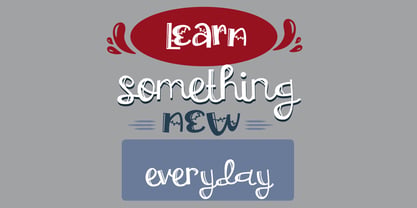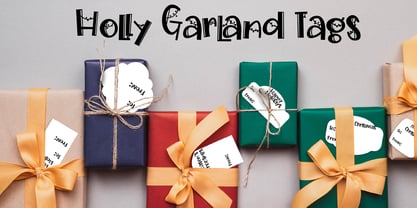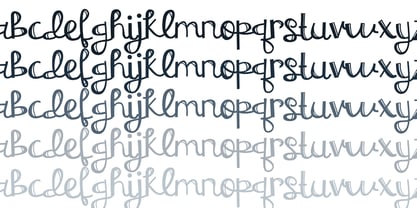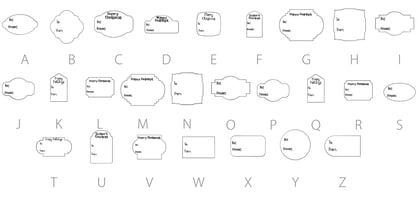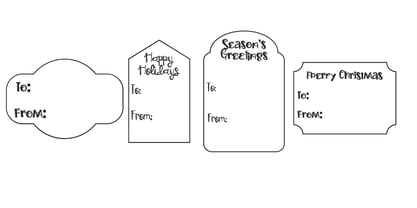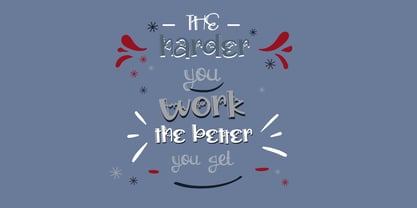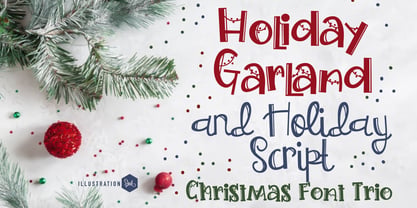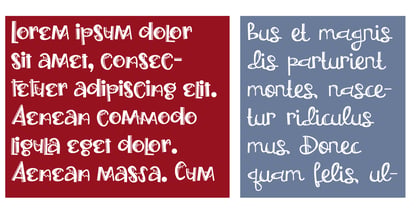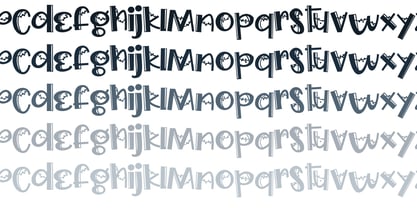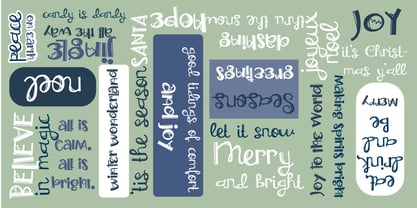
PN Holly Garland
by Illustration Ink
The PN Holly Garland Font Family was designed by Illustration Ink and published by Illustration Ink. PN Holly Garland contains 10 styles and family package options. More about this family
This hand-crafted font trio is made up of a hand-written font sporting a holly garland, a matching serif version and perfectly coordinated script as well as a bonus tag dingbat font. Hand-crafted fonts can be either formal or informal, and they can be used for a variety of purposes. Some of the characteristics of handwritten fonts include: The letters are not perfectly uniform in size or shape. There may be slight variations in the spacing between letters and words. The font may have a "wiggly" or "squiggly" appearance. The font may be difficult to read at small sizes. Handwritten fonts can be a great way to add a casual touch to your designs. They can also be used to create a sense of nostalgia or whimsy. However, it is important to choose a handwritten font that is appropriate for the project you are working on. A formal handwritten font may not be appropriate for a casual invitation, while an informal handwritten font may not be appropriate for a corporate document.
Designers: Illustration Ink
Foundry: Illustration Ink